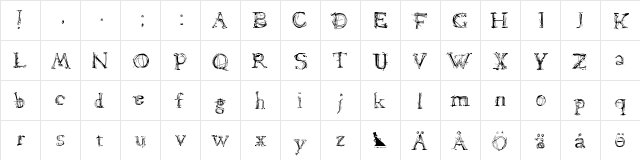
Lamenta Regular
Design Context for Lamenta Typeface
Lamenta is a composed and adaptable typeface that performs quietly and consistently across a wide range of design contexts.